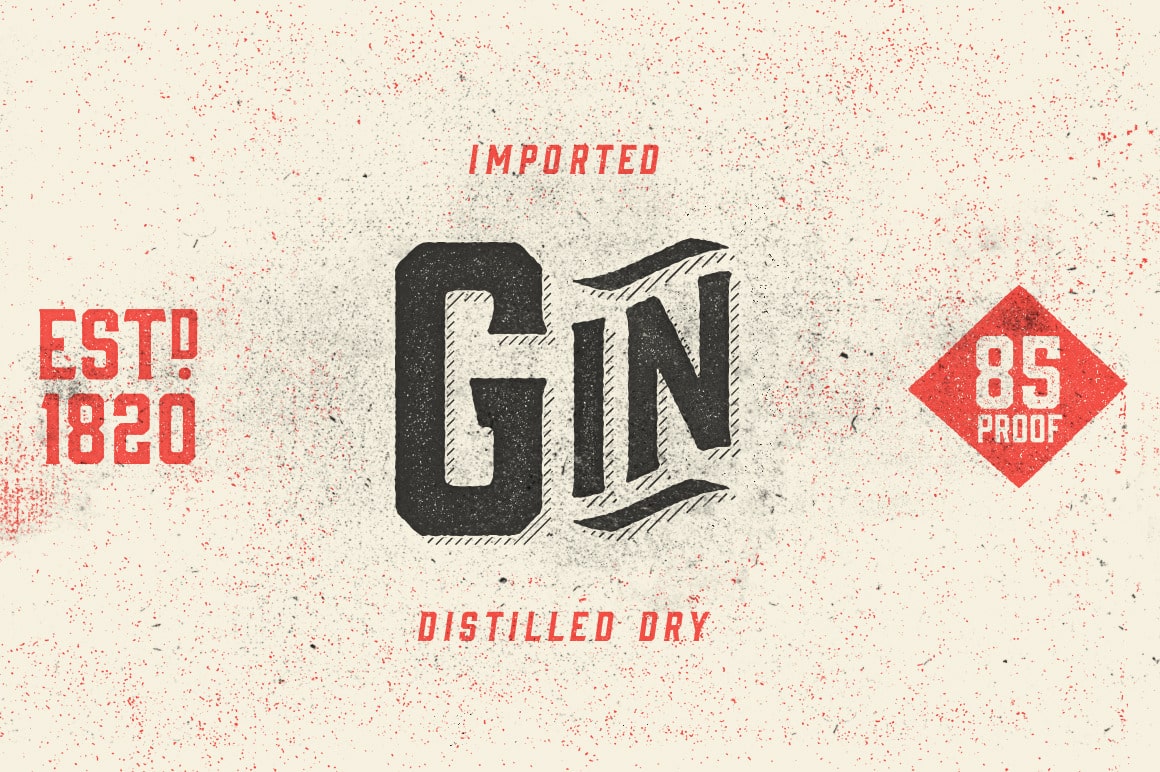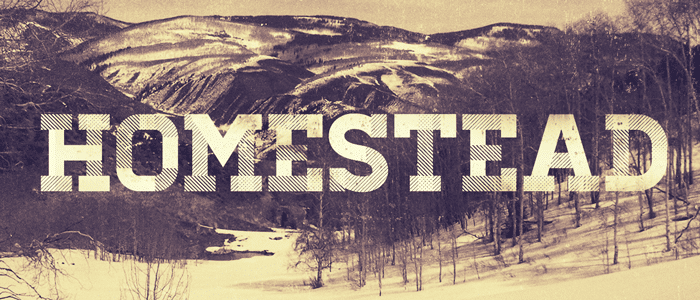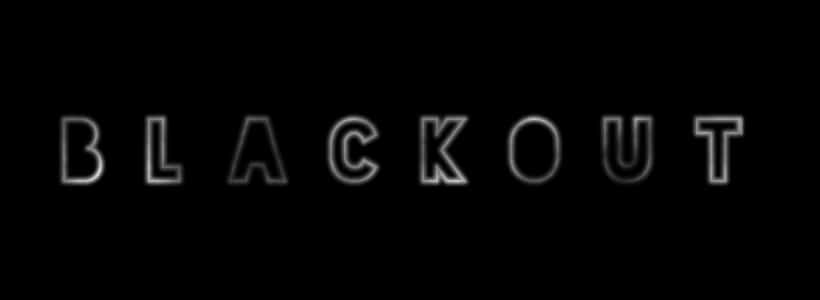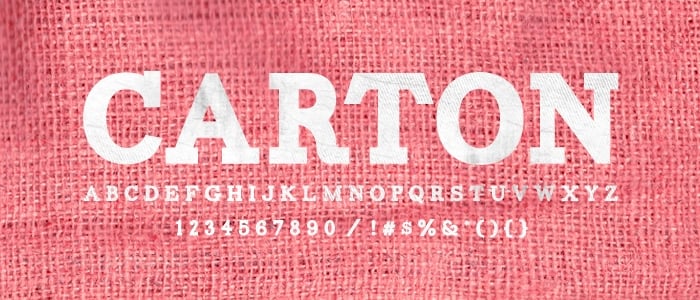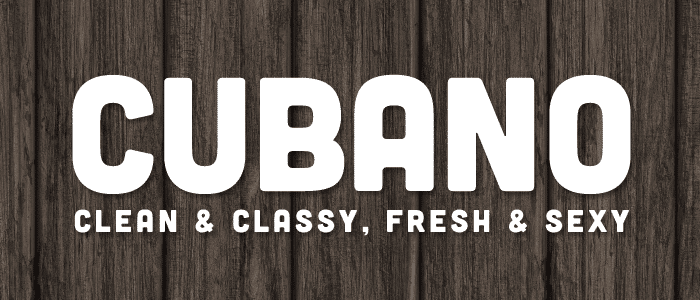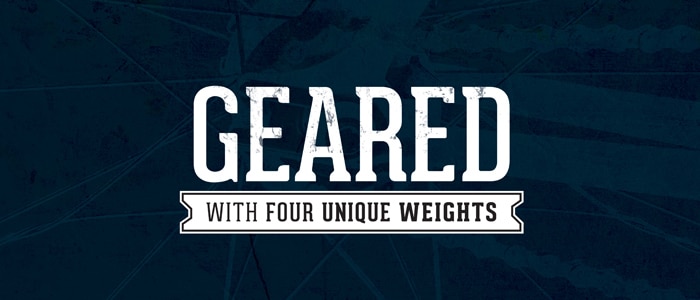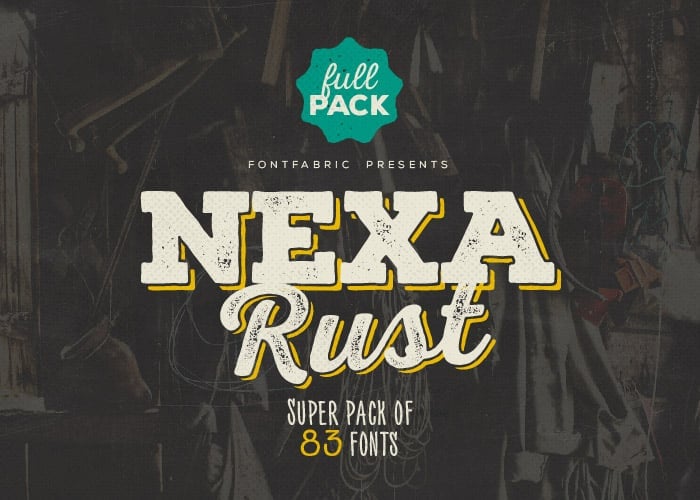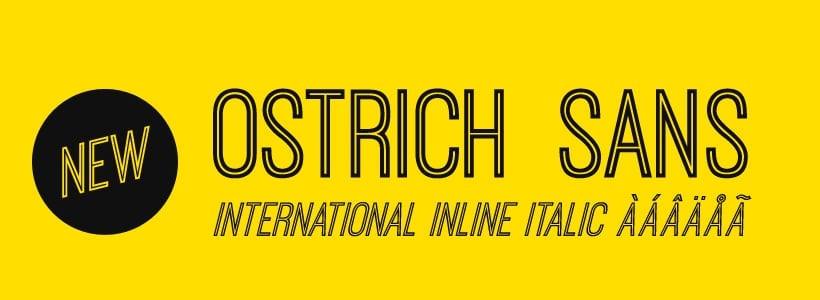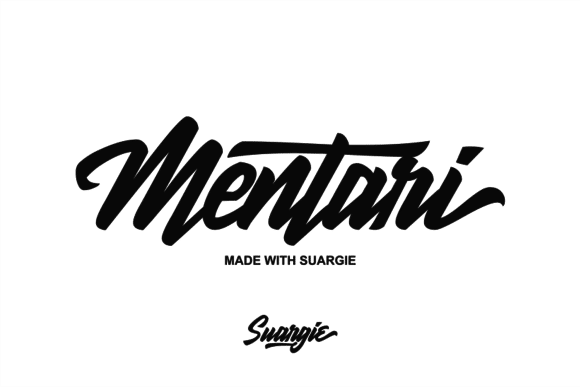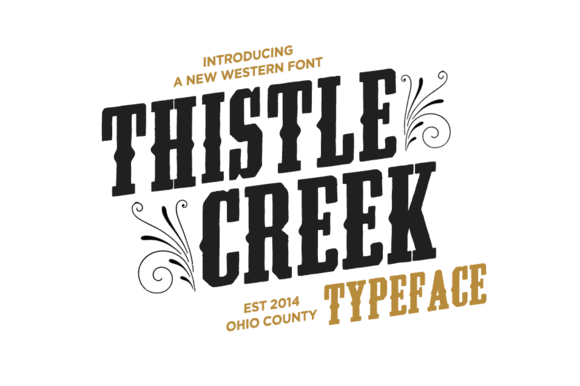
7 Best Free Hipster Fonts (+11 Best Paid Hipster Fonts)
Highlands - Best Free Hipster Fonts
You wanted them, and you get them.
I’ve done the curating – so you don’t have to.
Here are my favorite free hipster fonts for your enjoyment and downloading pleasure.
1.Highlands – Free Download on Lost Type
Highlands - Best Free Hipster Fonts
2. Ostrich Sans – Free Download on League of Moveable Type
Ostrich Sans - Best Free Hipster Fonts
3. Geared – Free Download of Lost Type
Geared - Best Free Hipster Fonts
4. Blackout – Free Download on League of Moveable Type
Blackout - Best Free Hipster Font
5. Homestead – Free Download on Lost Type
best-free-hipster-fonts-homestead
6. Carton – Free Download on Lost Type
Carton Font - Hipster Fonts
7. Cubano – Free Download on Lost Type
Cubano Hipster Fonts
1. The Legend Font Trio – $18 on Creative Market
The Legend Font Family
2. Brothers Font – $140 on FontSpring
Brothers Font - Hipster
3. Gin Typeface – $45 on Creative Market
Gin Typeface
4. Nexa Rust – Free Version (5 Fonts), Full Font Family (83 Fonts)
Nexa Rust
5. Old Scotch Typeface – $13 on Creative Market
Old Scotch Font Family - Hipster font
6. Riverhack – $16 on Creative Market
Riverhack - Hipster Fonts
7. The Whisky Font Collection – $15 on Creative Market
The Whiskey Font Collection - Hipster Fonts
8. Thistle Creek – $15 on Creative Market
Thistle Creek - Hipster Fonts
9. Endurest Serif – $12 on Creative Market
Endurest Typeface - Hipster Font
10. Twilight – $13 on Creative Market
Twilight Font - Best Free Hipster Fonts
11. Suargie – $20 on Creative Market
Suargie - Best Hipster Fonts